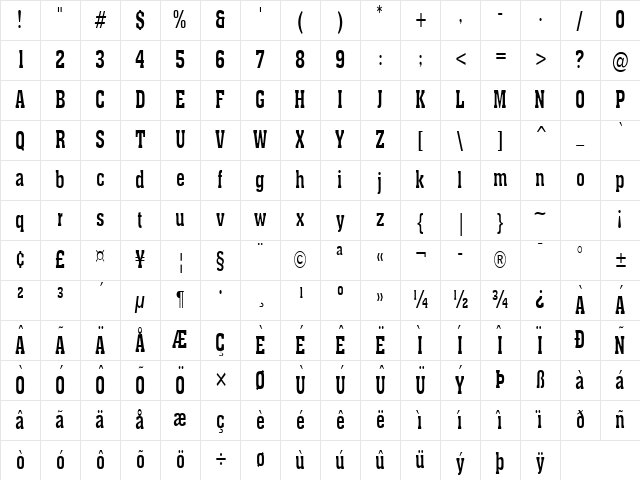
Ache Thin Regular
Design Context for Ache Thin
Ache Thin is a composed and adaptable typeface that performs quietly and consistently across a wide range of design contexts. Its slender proportions lend an understated elegance to any composition.